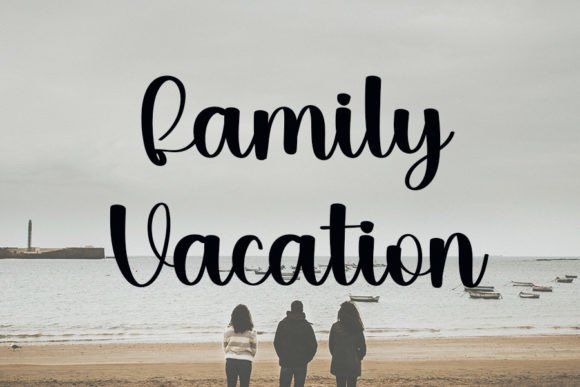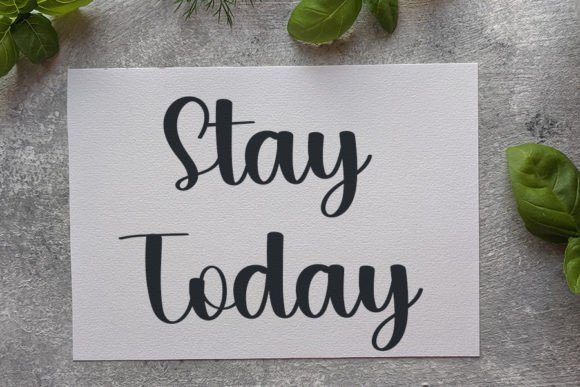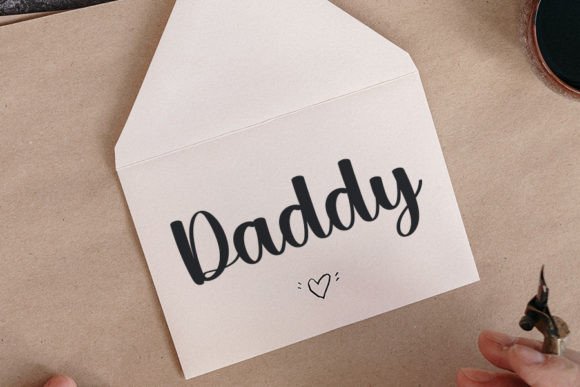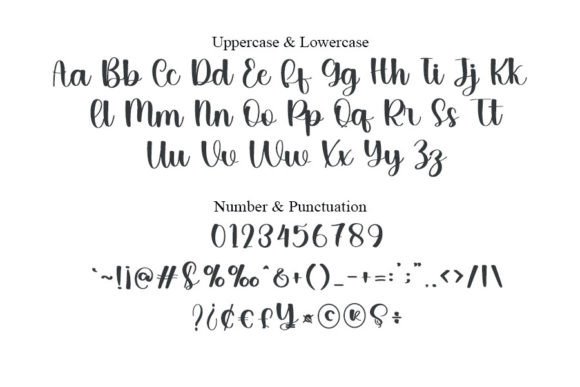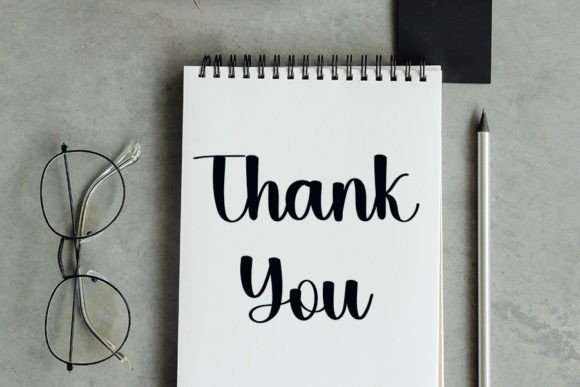
Beach in Valentine Font
What Is Beach In Valentine Font?
Beach In Valentine Font is a trendy handwritten typeface that blends timeless calligraphy with a fresh, contemporary feel. Each letter features smooth curves and refined strokes that feel both modern and classic. Because of its elegant style, this font is ideal for projects that need sophistication and a personal touch.
You will see how effortlessly Beach In Valentine elevates your designs to look polished and memorable.
Beach In Valentine is a versatile font you can apply across many creative contexts. For example, it’s perfect for wedding invitations and event stationery. The graceful script adds a romantic, premium impression that guests will admire.
In addition, it works beautifully for logos and branding. Whether you create designs for boutiques, beauty brands, or creative businesses, this font helps your identity feel unique and high-end.
You can also use it for social media graphics and inspirational quotes. The flowing strokes and smooth letters draw attention and create a sophisticated aesthetic.
When you design product packaging or labels, Beach In Valentine gives everything a handcrafted, luxurious feel that stands out.
Moreover, it’s great for website headers, certificates, posters, and personal projects. Even simple layouts feel more refined with this script.
Why Should You Choose Beach In Valentine Font?
There are many reasons to consider Beach In Valentine for your next project. First, it’s easy to read, even with its stylish flourishes. Whether you use large titles or smaller captions, every letter stays clear and balanced.
Also, this font pairs beautifully with clean serif or sans-serif fonts. This helps you create modern, cohesive layouts effortlessly.
Designers love that it looks polished right out of the box, saving time while delivering professional results.
Beach In Valentine Font brings elegance and charm to every project. For example, when you want your designs to feel graceful and memorable, this font makes it simple.
Even minimalist layouts feel richer with Beach In Valentine’s refined handwritten style. Whether you create branding, invitations, or social posts, your work will stand out beautifully.
Using a premium script font also shows your dedication to detail and quality. This builds trust with your audience and makes your designs more impactful.
Beach In Valentine Font is more than just a typeface—it’s a creative tool that helps you share ideas with clarity and style. From logos and invitations to packaging and quotes, this font adapts easily and leaves a lasting impression.